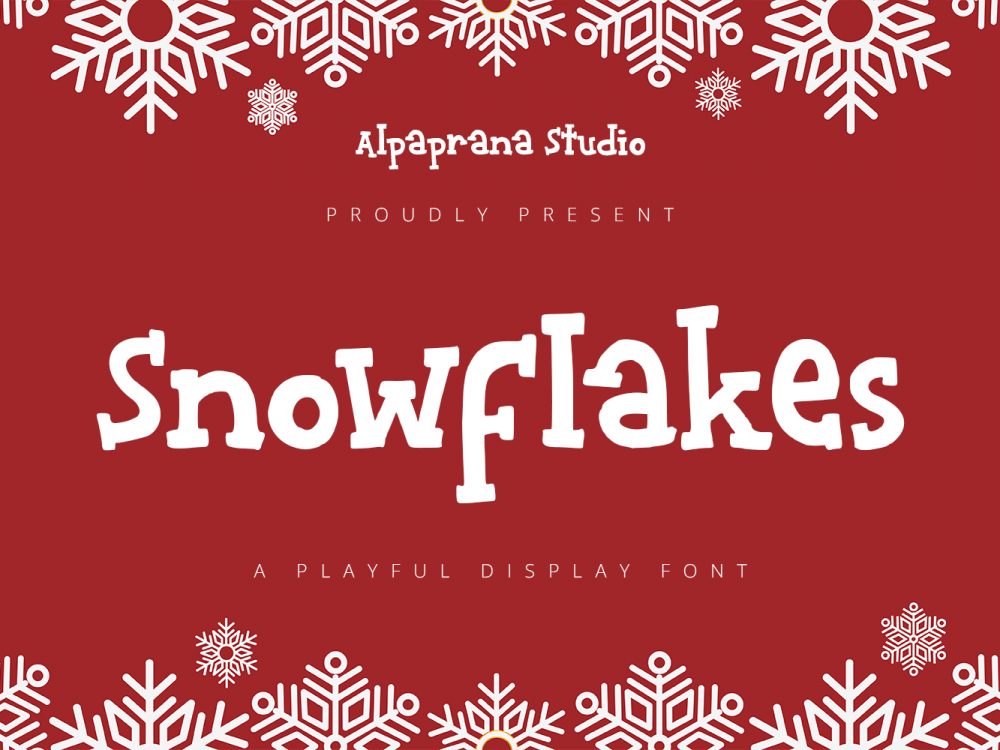
Snowflakes Free Font
Snowflakes Free Font is a whimsical and lighthearted font that is perfect for adding a touch of cheer and fun to any project. With its playful, snowflake-inspired shapes and playful, bouncy style, this font is sure to put a smile on your face and bring a sense of joy and cheer to your work. Whether you are using it to create festive holiday graphics or adding a touch of whimsy to your everyday designs, this font is sure to add a touch of magic to your work. Its playful nature and bold, eye-catching design make it a perfect choice for anyone looking to add a touch of whimsy and cheer to their projects. If you like it don’t forget to check out the full version.